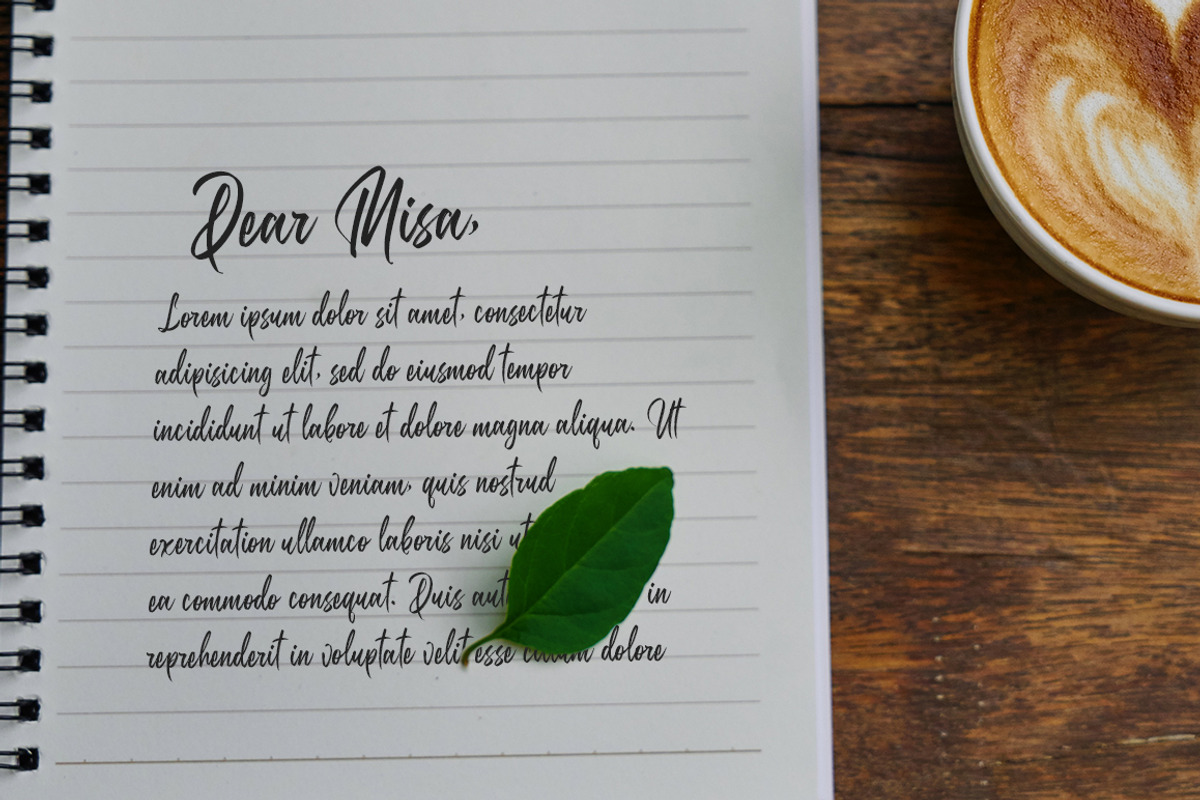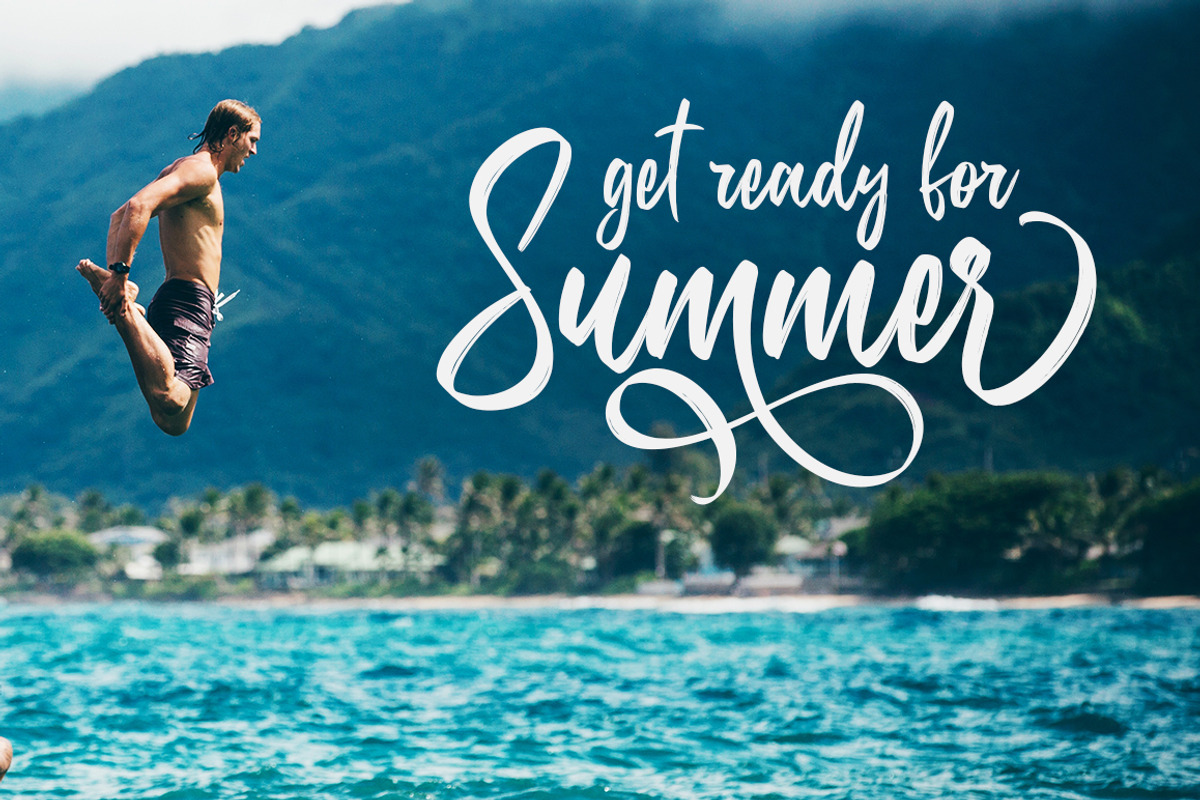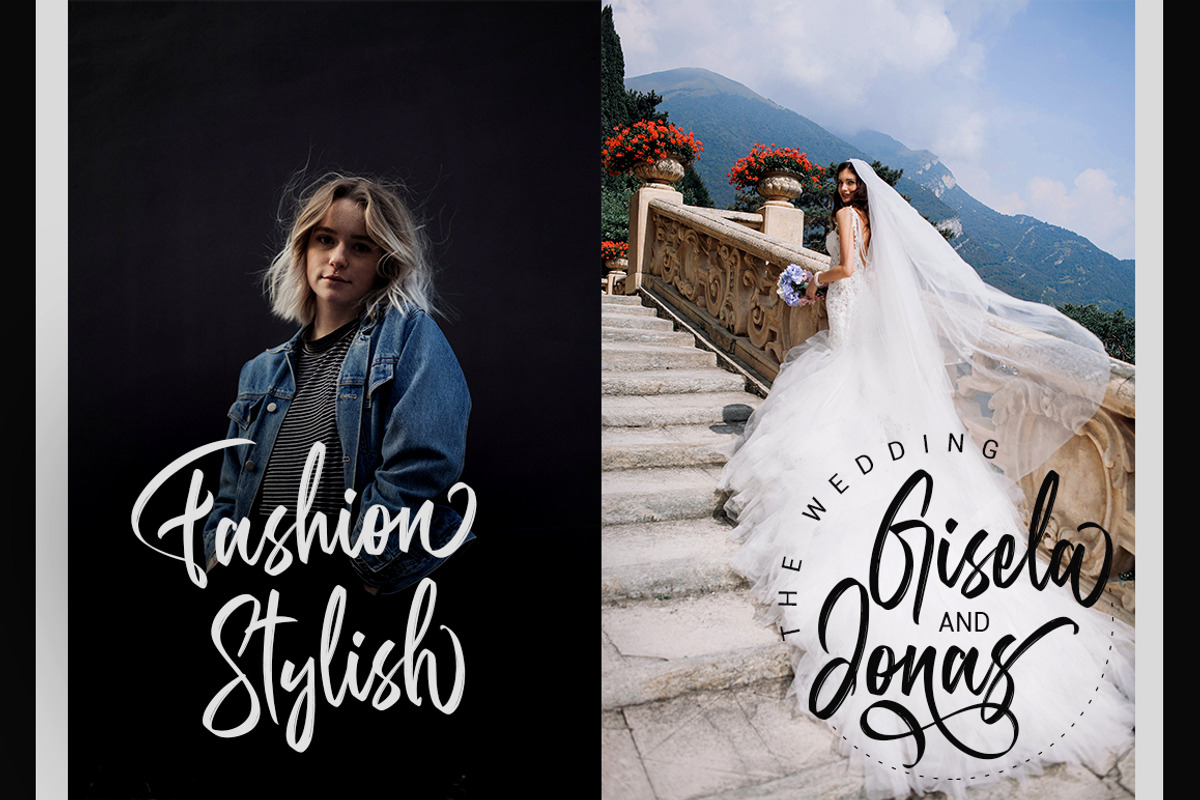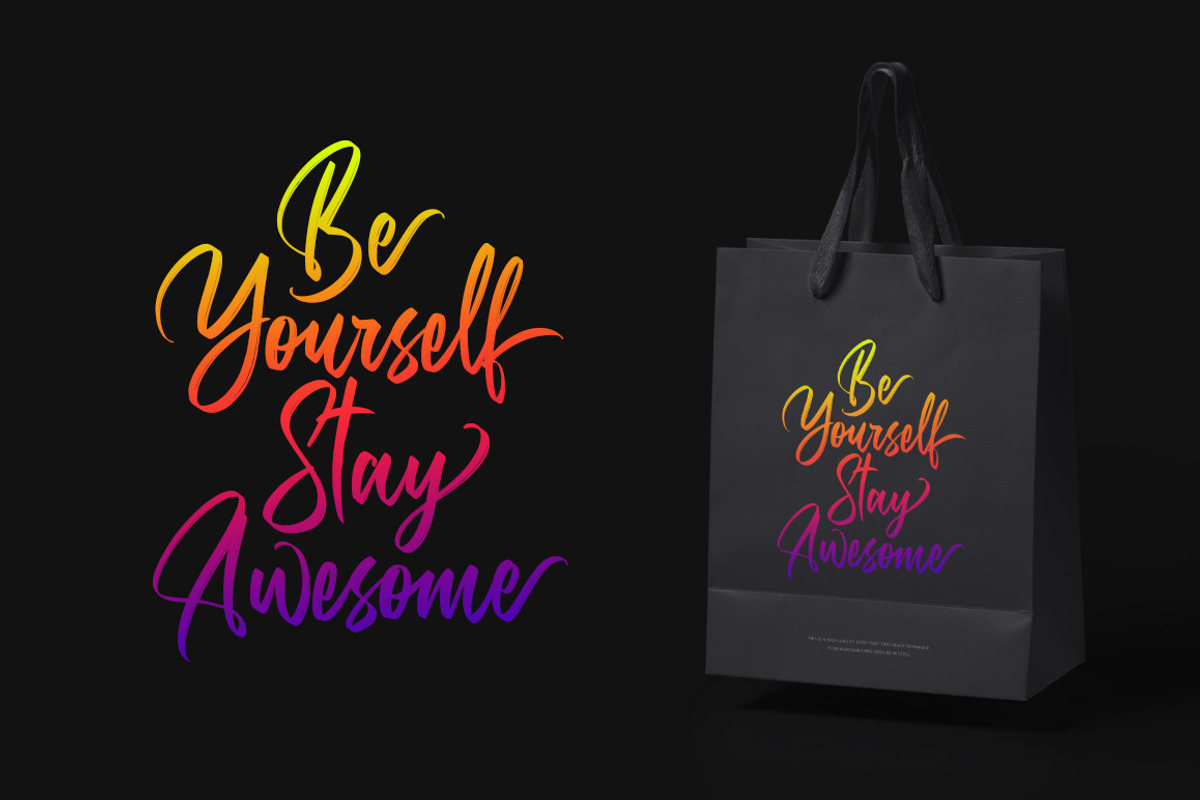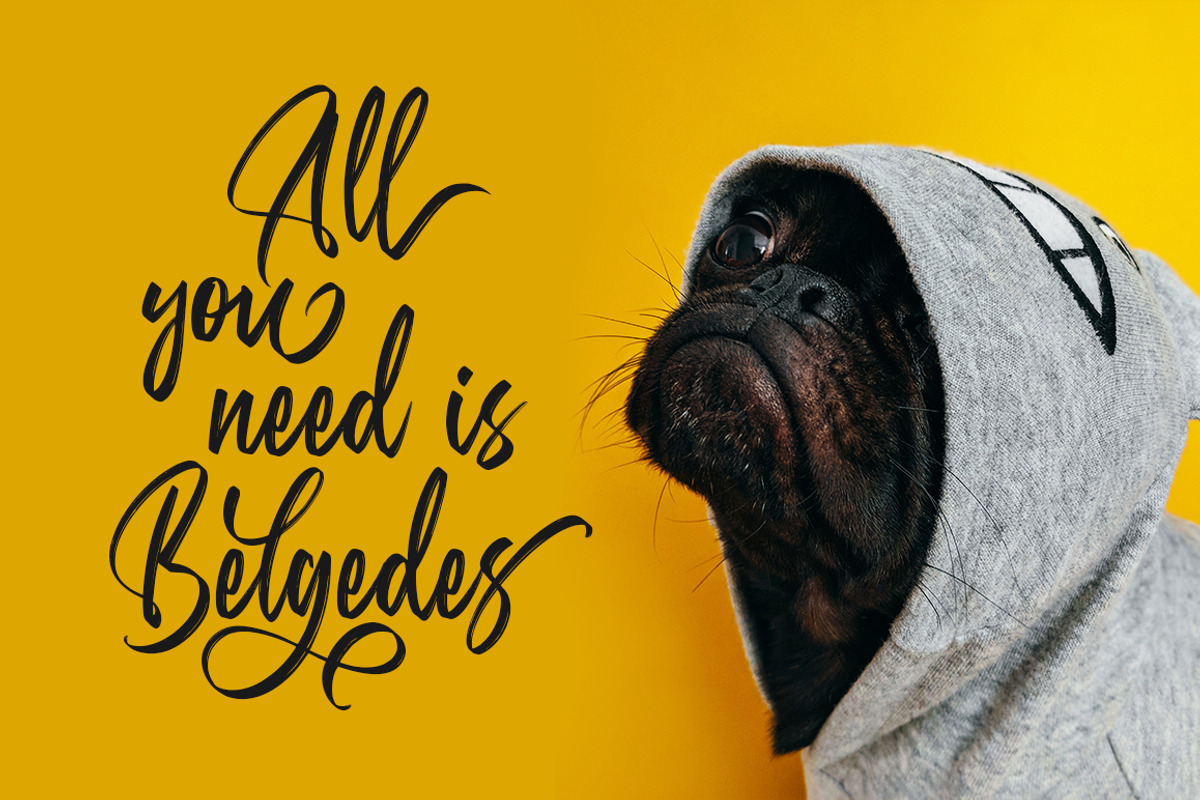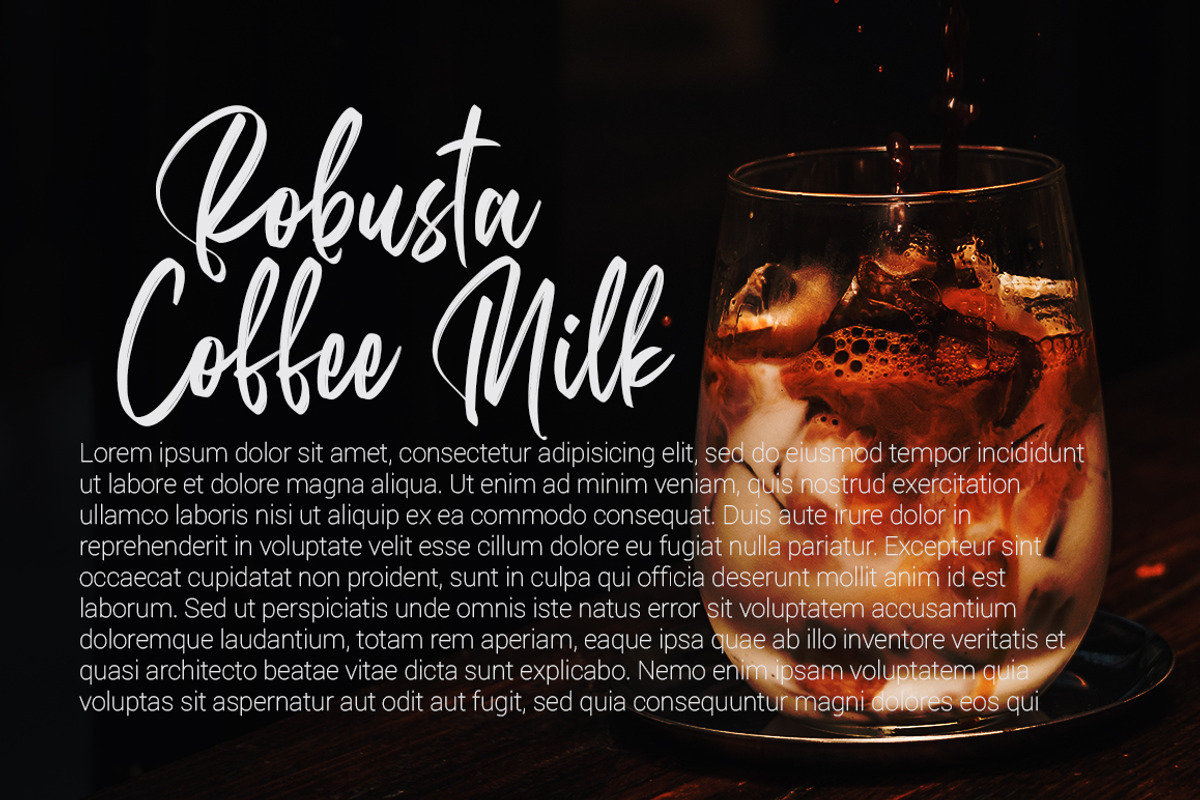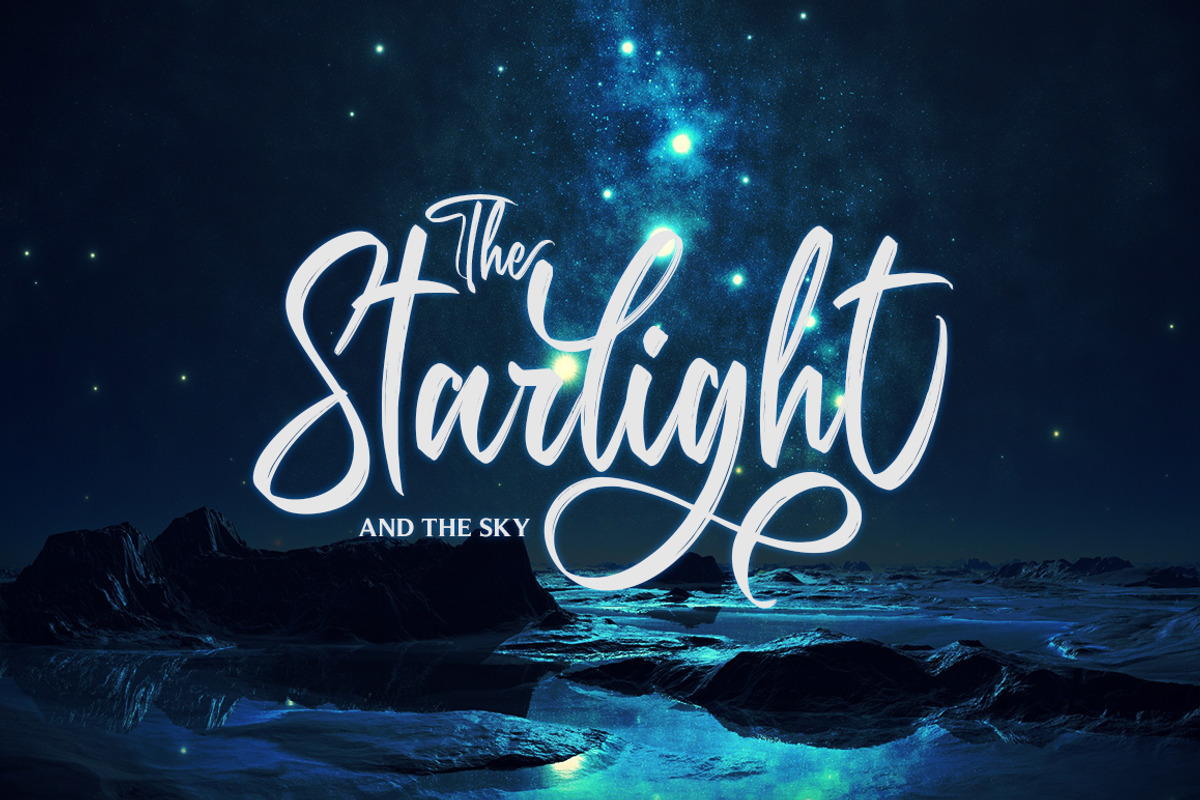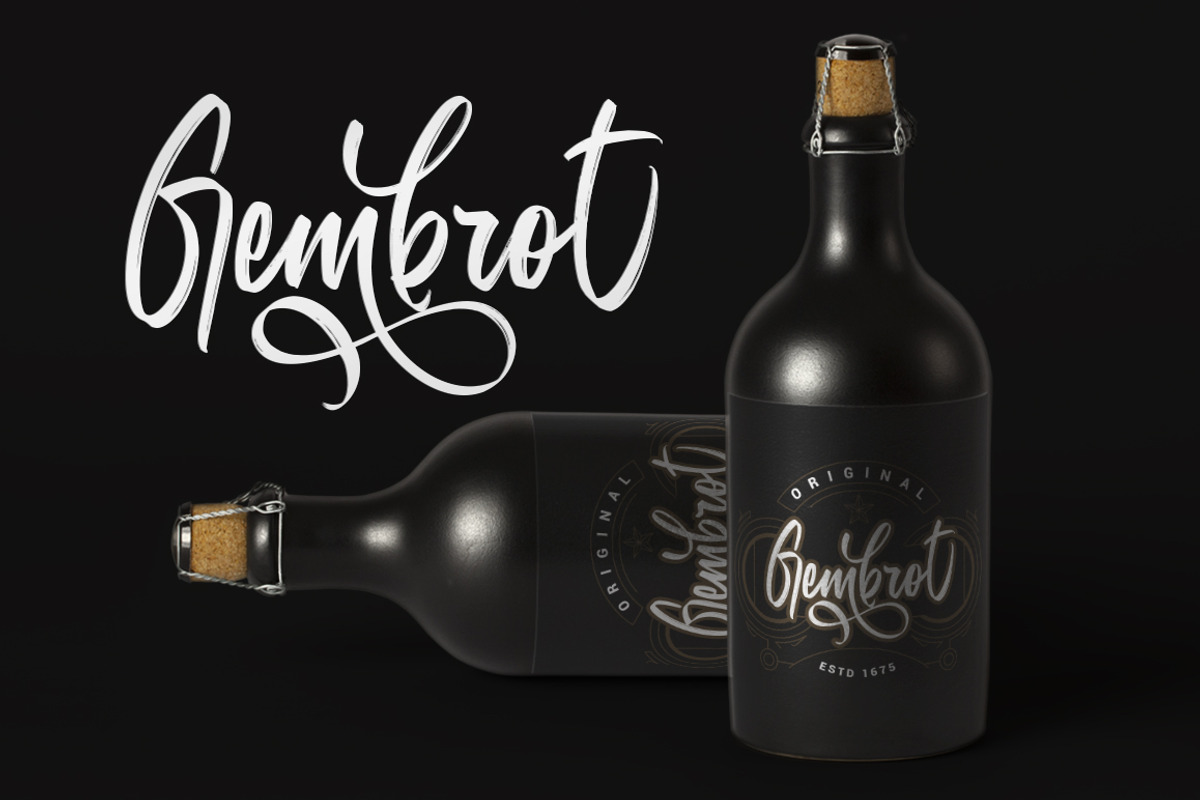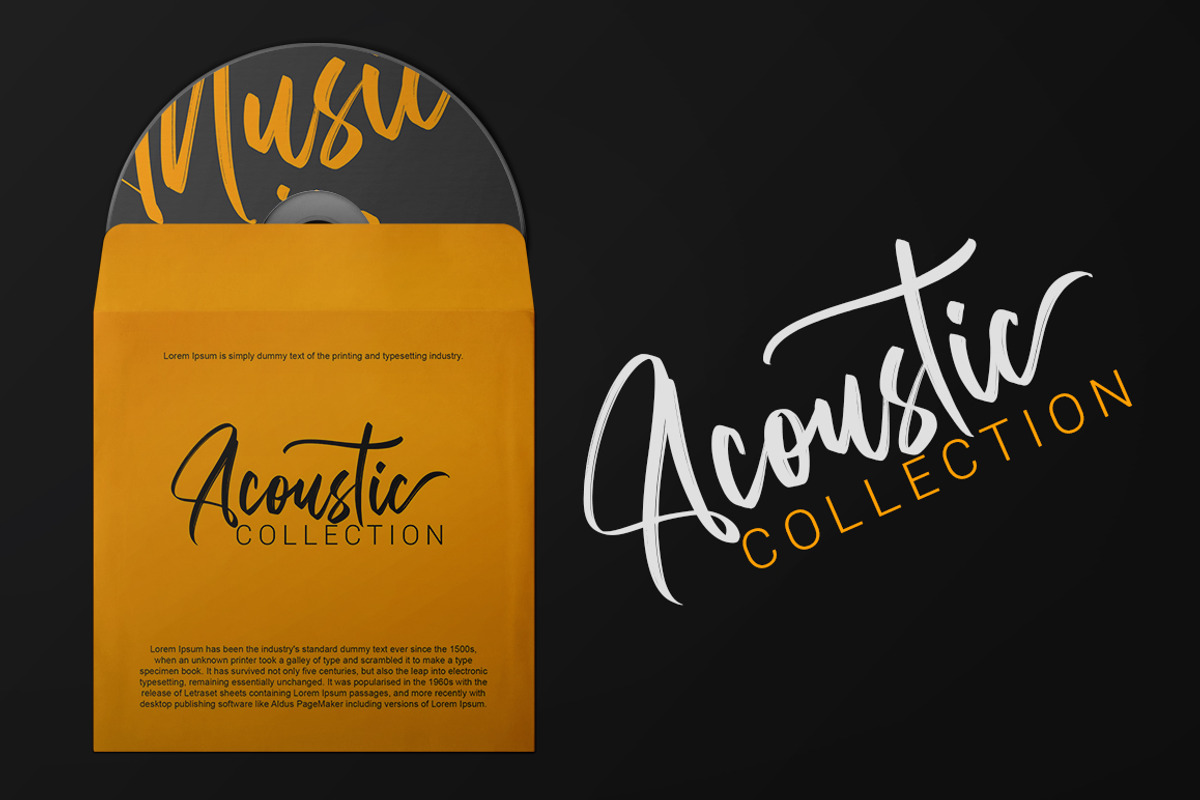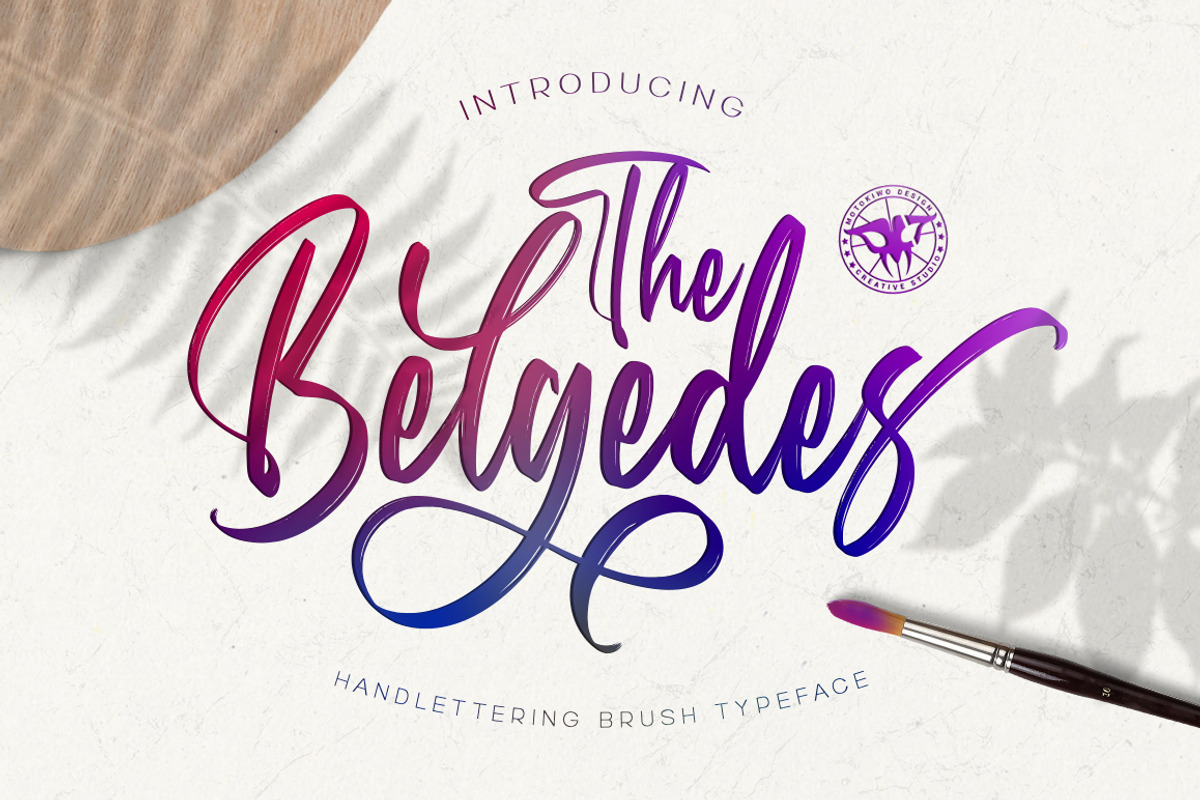
Belgedes, Hand Lettered Script Font
Belgedes is brush script font with hand lettering style. This font looks cool in any design and very recommended for logo, poster, branding, quote, or anything else that needs a touch of elegance. Belgedes has a little ligature and stylistic set alternate characters, you can access all alternates from your Open Type panel in your design software.
Feature:
- Stylistic Set Alternates SS01 & SS02
- Standard Latin Multilingual Support